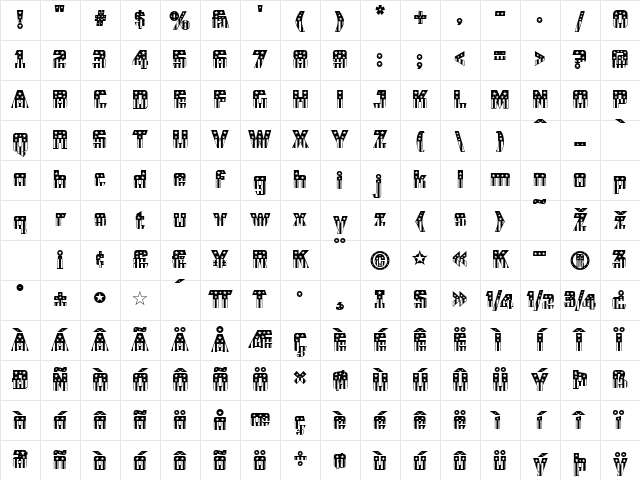
CFB1 American Patriot SOLID 2 Regular
Foundry: The Fontry
Design Context for CFB1 American Patriot SOLID 2
CFB1 American Patriot SOLID 2 is a composed and adaptable typeface that performs quietly and consistently across a wide range of design contexts.